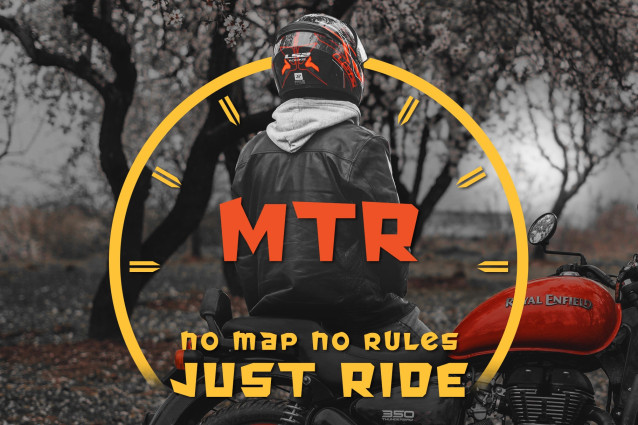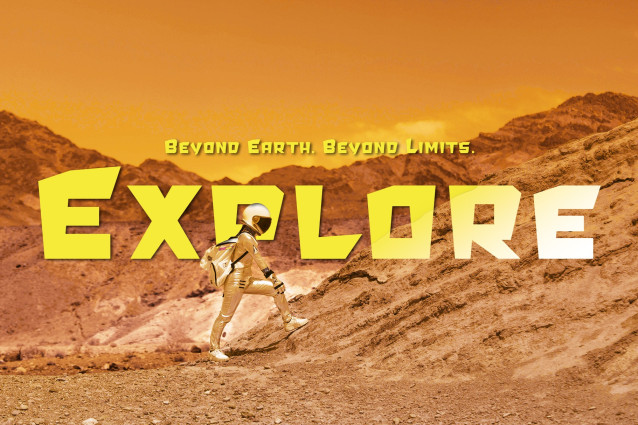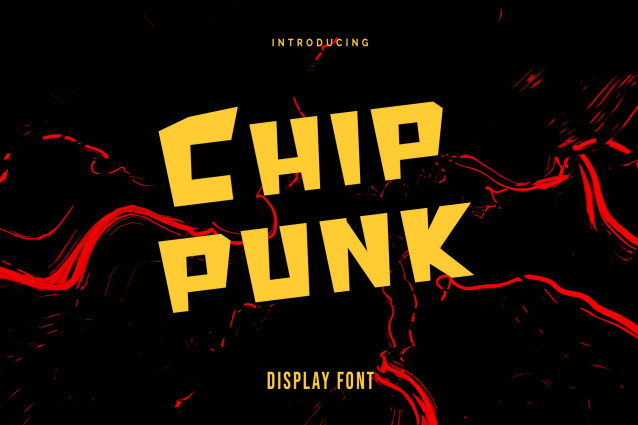
Chippunk Display Font
Chippunk Display Fonts: Bold, sharp and powerful style, with intersecting and angular letters, creating a dynamic, futuristic, rebellious or action-oriented impression. The characters look as if they have been cut with blades or are made of metal pieces, suitable for designs with themes of gaming, robots, action comics, heavy metal music or action movie posters. This style is very attention-grabbing and conveys a strong, bold impression, very effective for titles, logos or sub-titles that want to stand out and radiate energy.